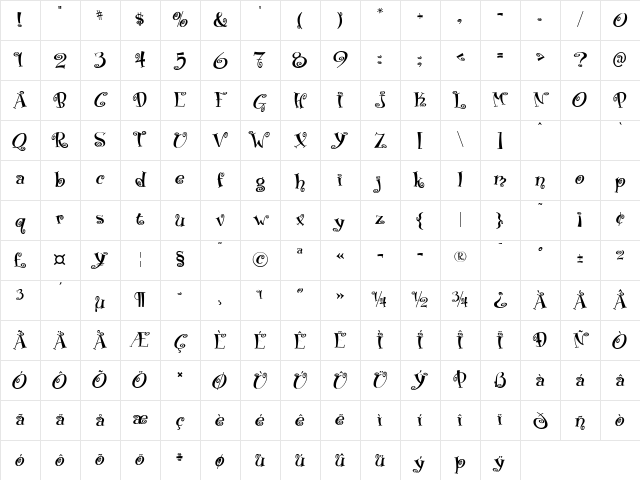
Matreshka Regular Free Font
Matreshka Regular
Foundry: Gophmann A.L.
Design Context for Matreshka
Matreshka is a composed and adaptable typeface that performs quietly and consistently across a wide range of design contexts.